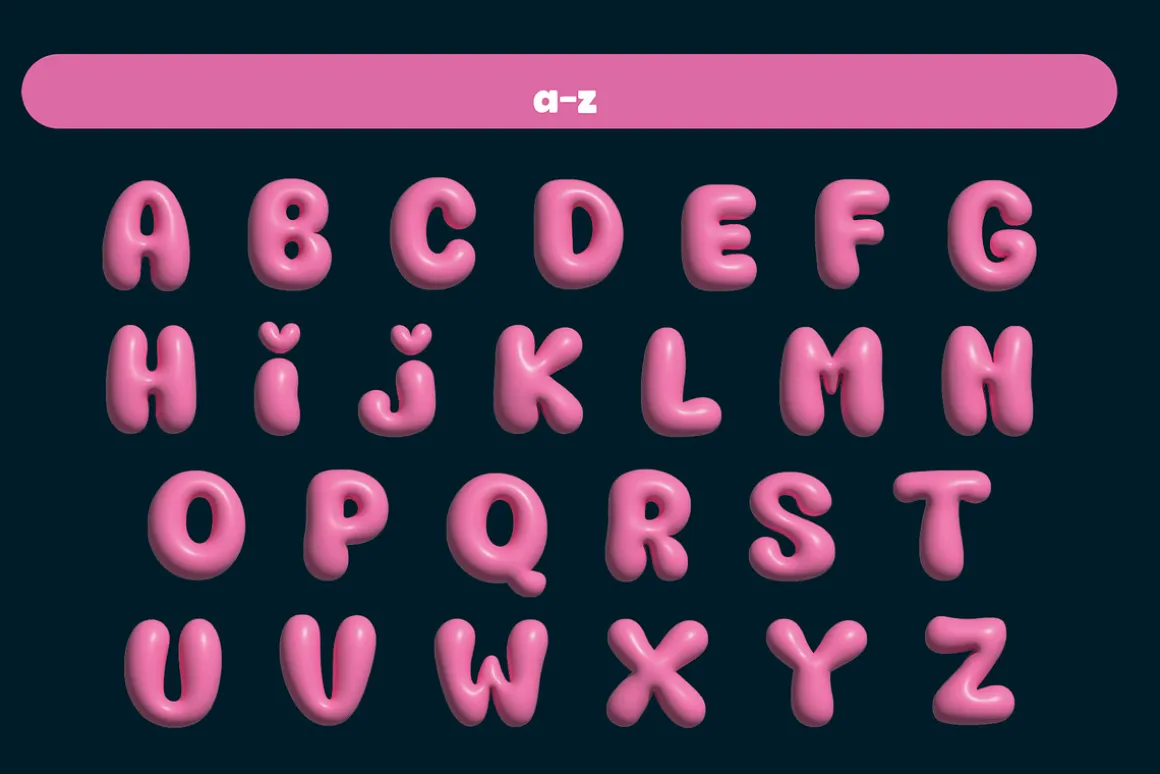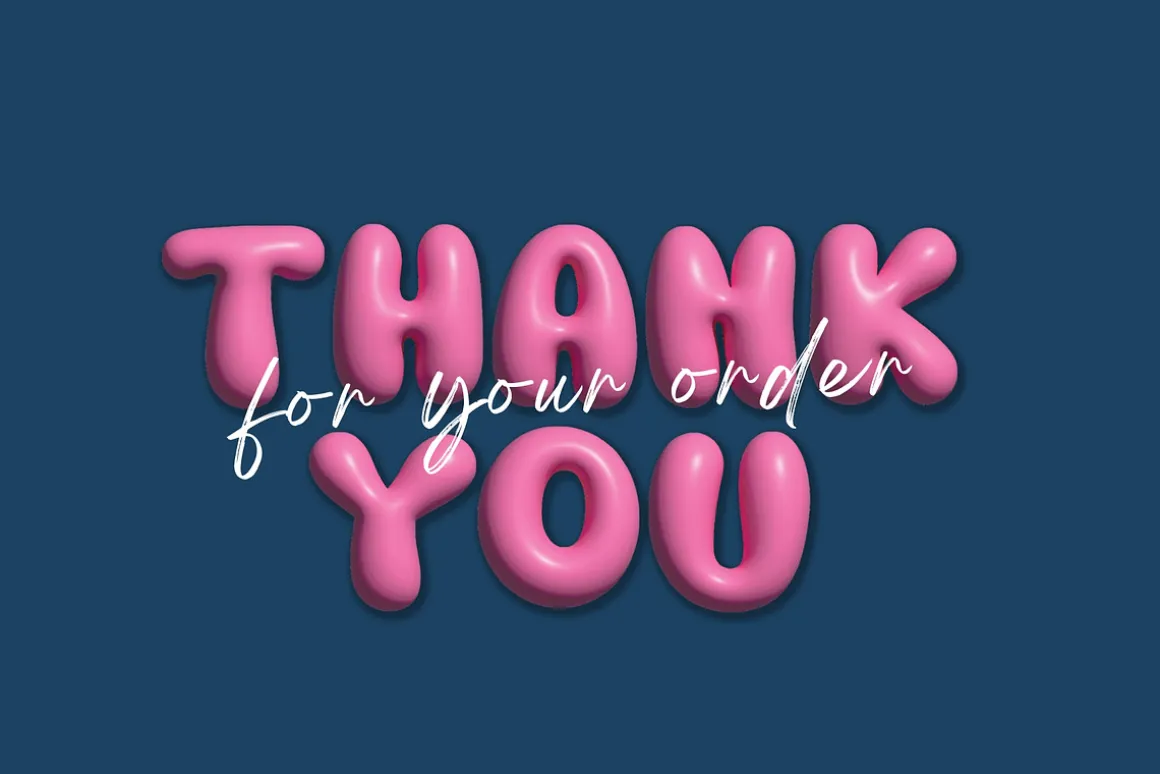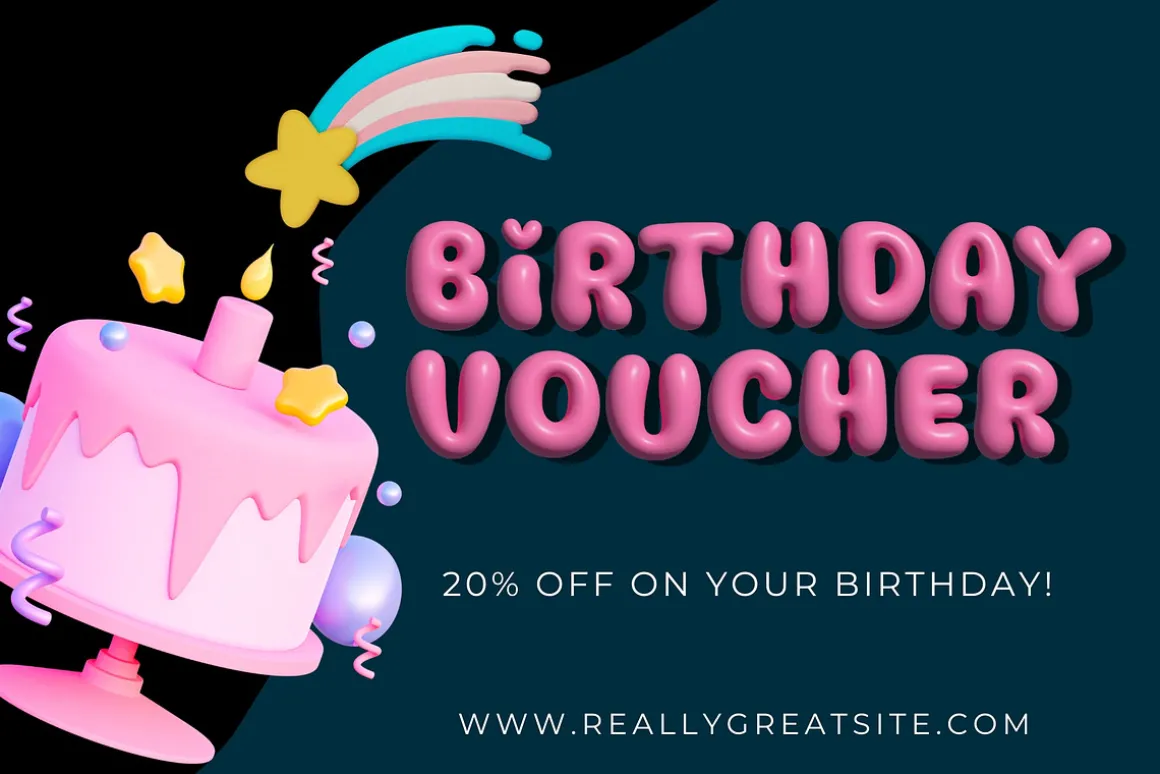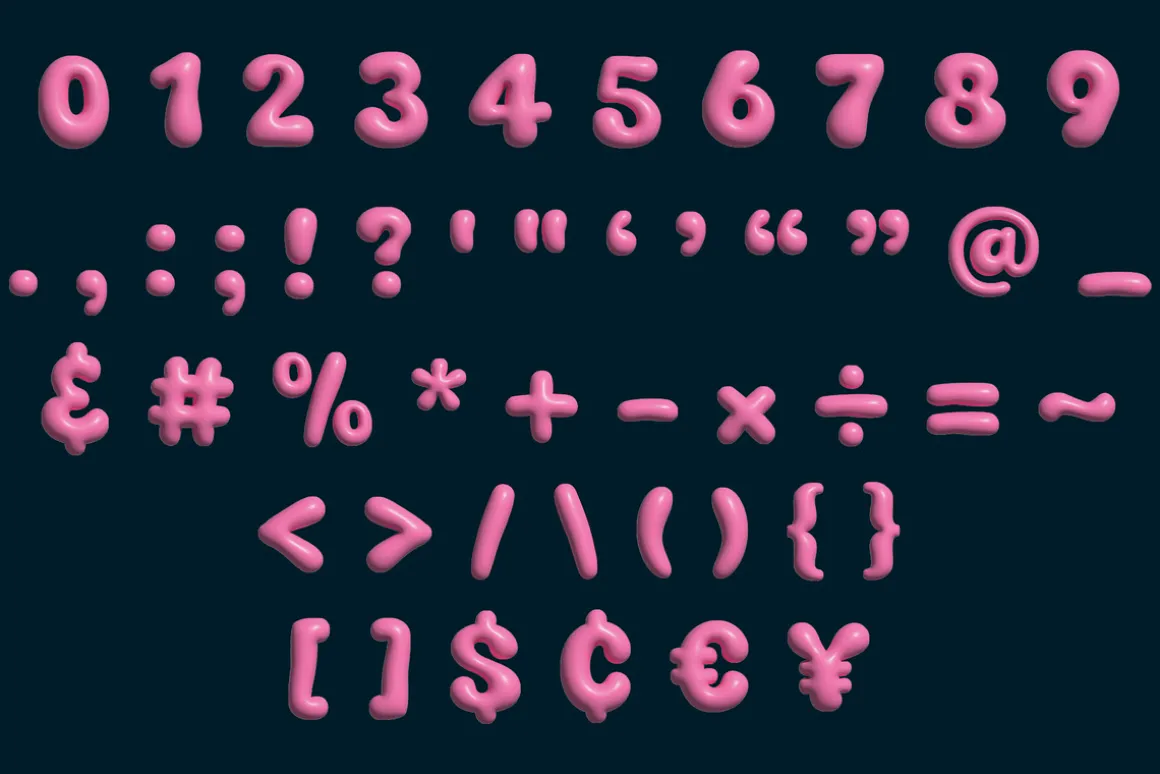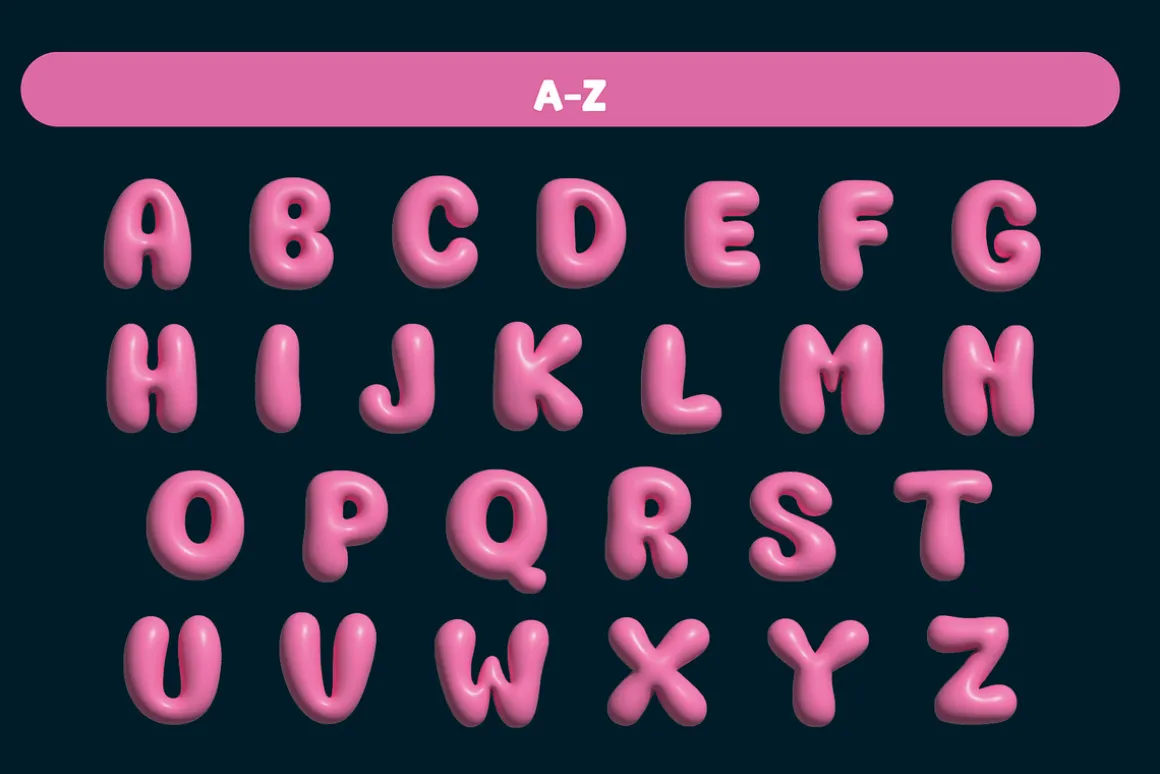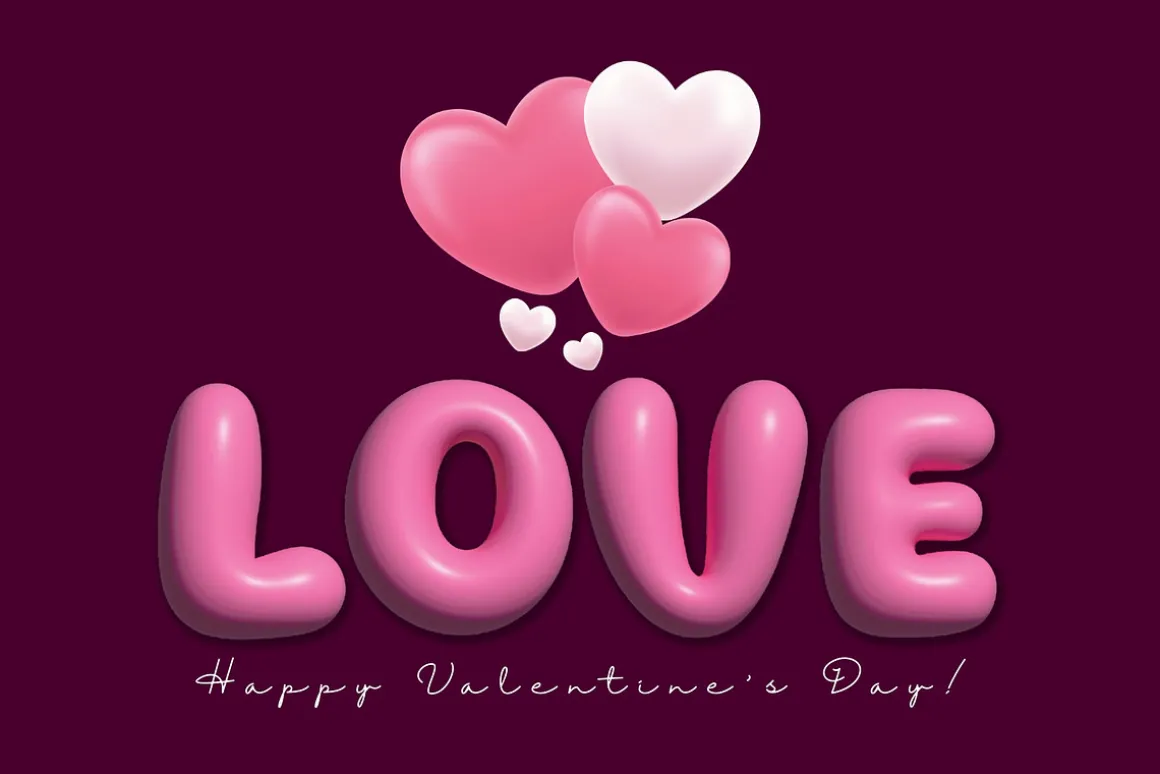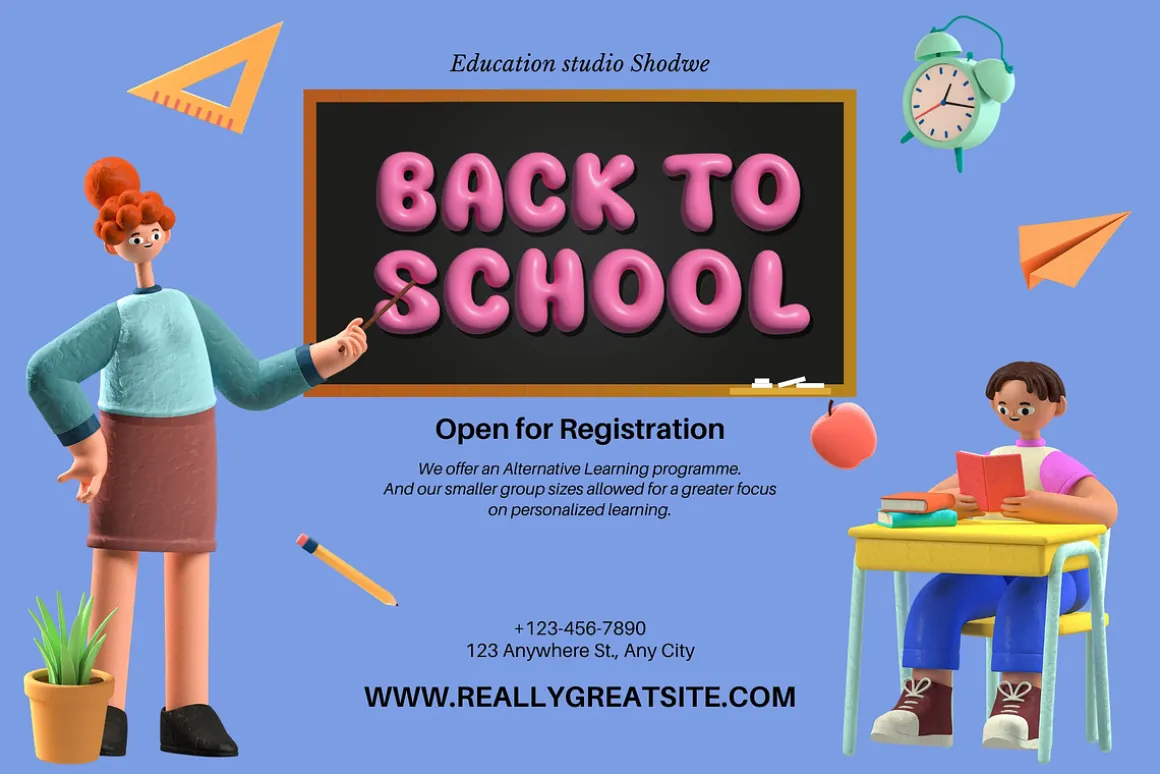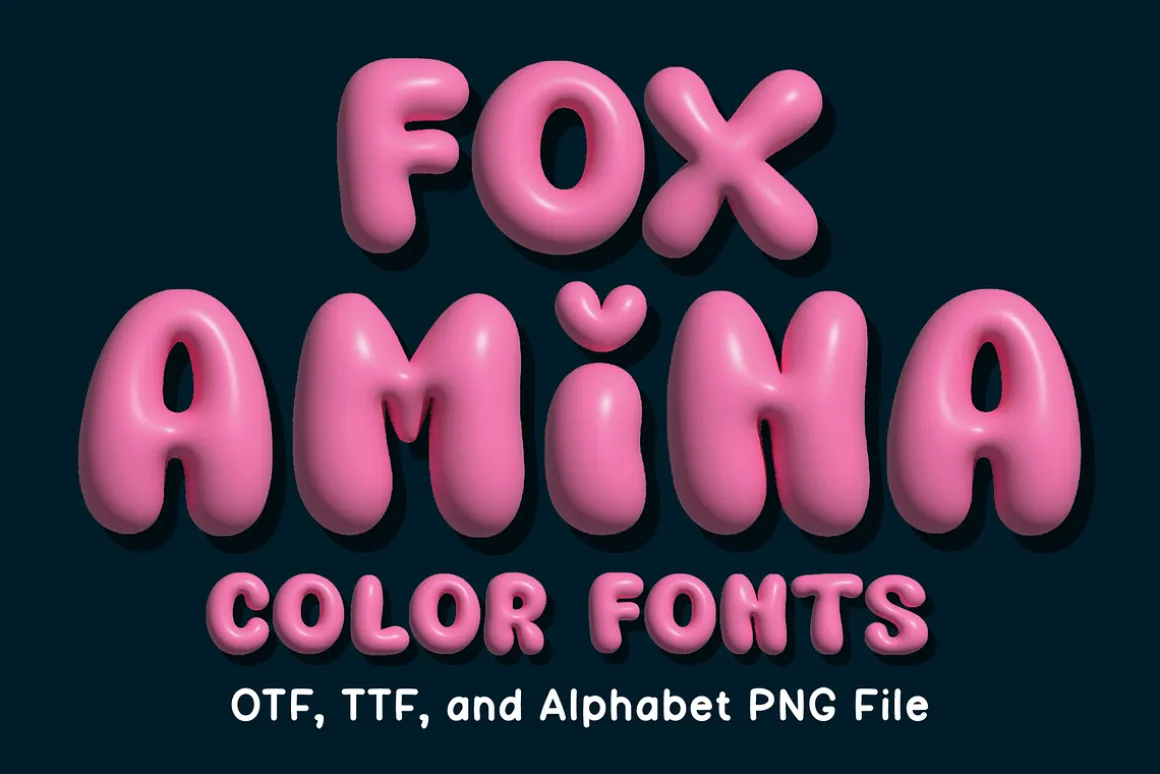
Fox Amina is a cute and fun color font. This font is your go-to for crafting cute greeting cards that express affection and warmth. Whether you’re a designer, a social media influencer, or someone with a penchant for creative expression. Fall in love with its authentic feel and use it to create gorgeous invitations, beautiful stationary art, eye-catching social media posts, and cute greeting cards. Add this beautiful font to each of your creative ideas, and notice how it makes them stand out.